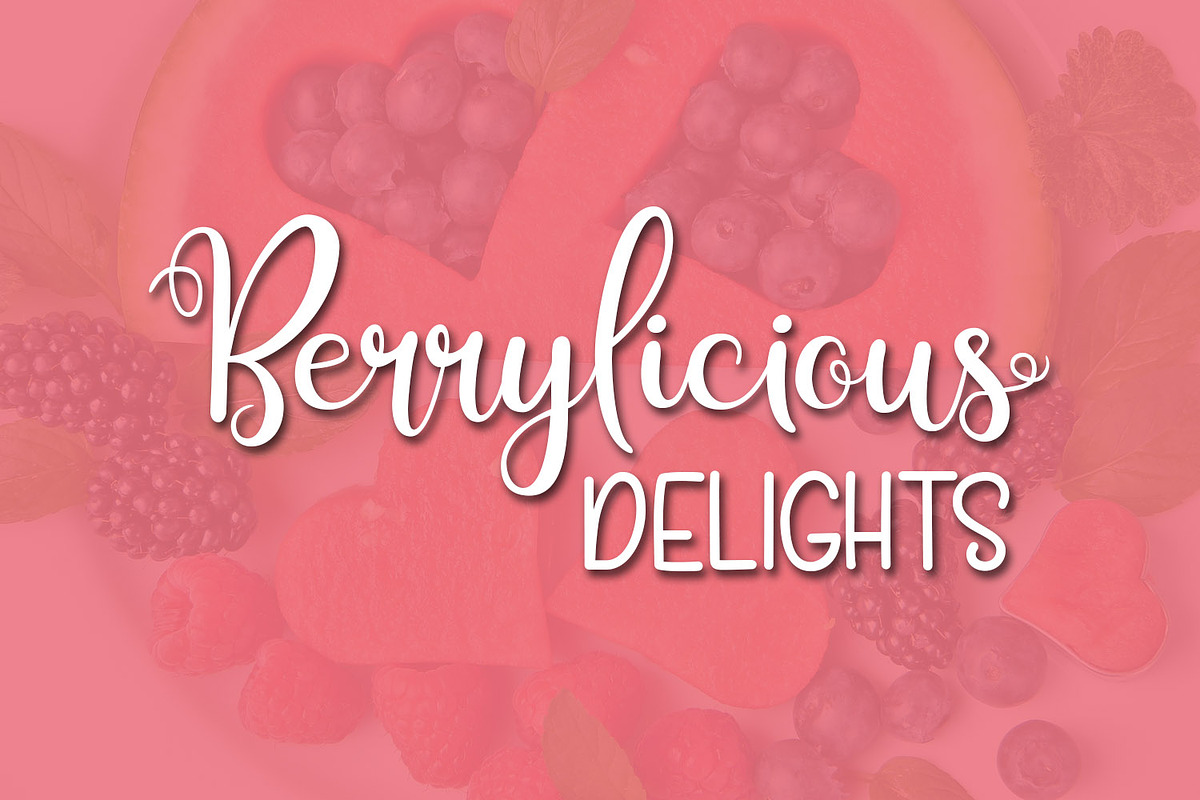
Berry Smoothies
Berry Smoothies is a font duo which includes both a feminine, swirly script font, and a handwritten sans-serif.
Berry Smoothies script boasts 5 sets of stylistic alternates, so you can mix-and-match to create the perfect look for your design. Discretionary ligatures assist in providing a handwritten look so that your double letters look a little different to each other. A handful of swashes and decorative swirls are also included in the Private Use Area.